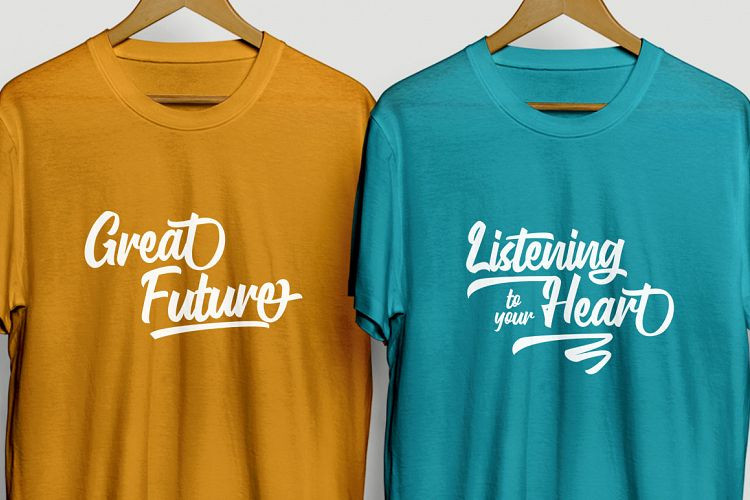
Gluottine Font is a calligraphy script font. It is a typestyle for a wide variety of use it is very soft and has fast curves, while its low slant angle makes it very legible. Gluottine Bold Script is a modern calligraphy font that’s perfect for adding that classy vibe to your next craft.
Gluottine Font - Free Calligraphy Script Typeface